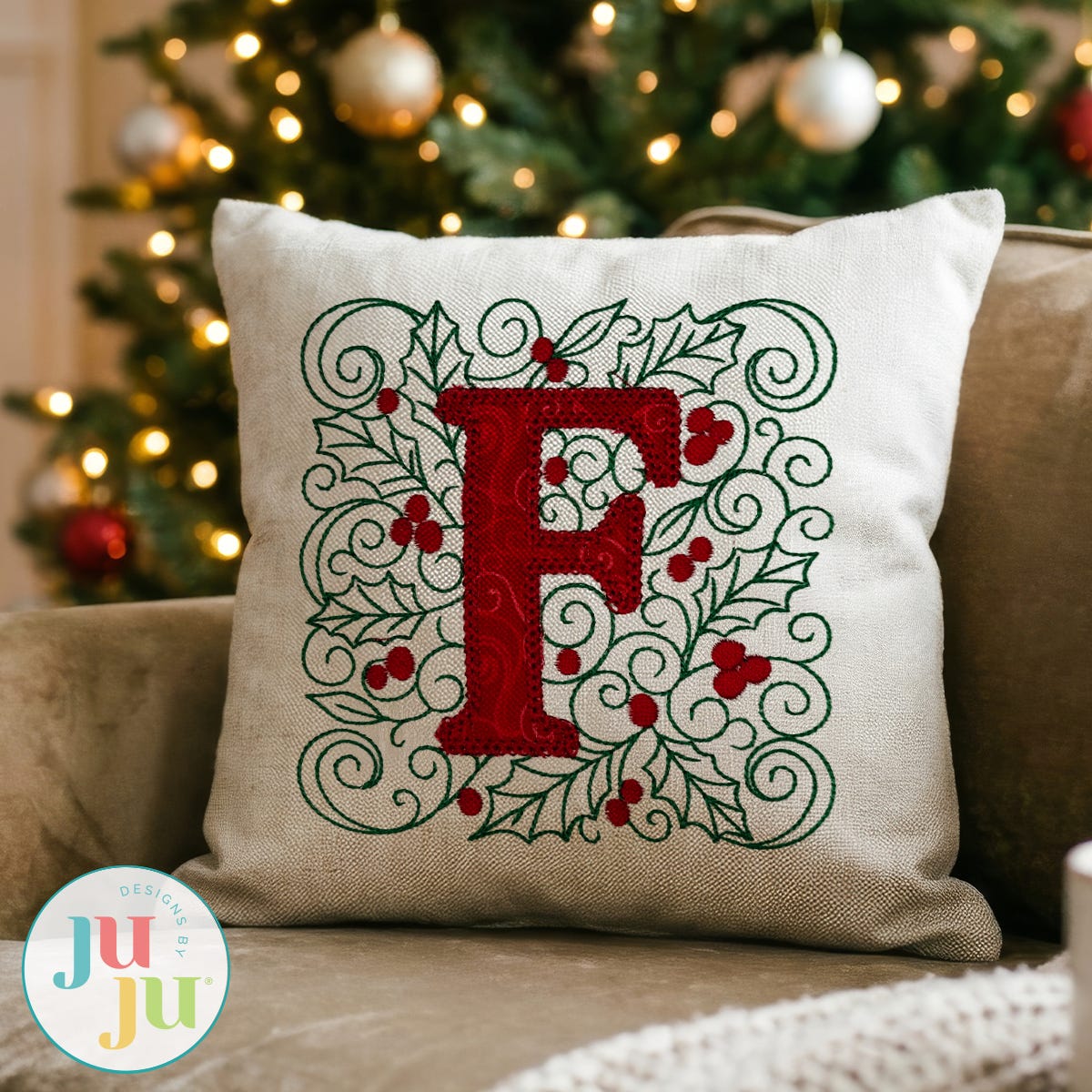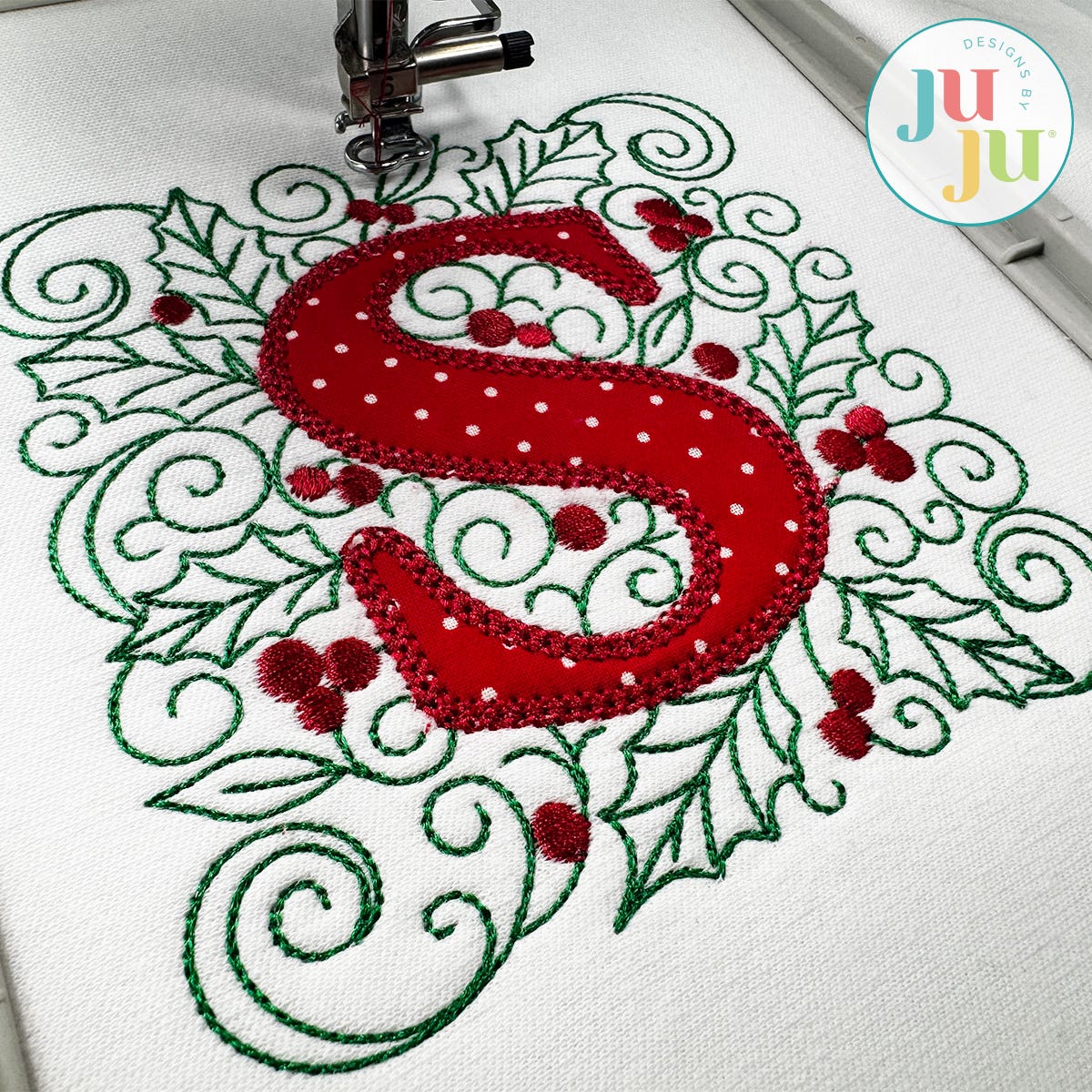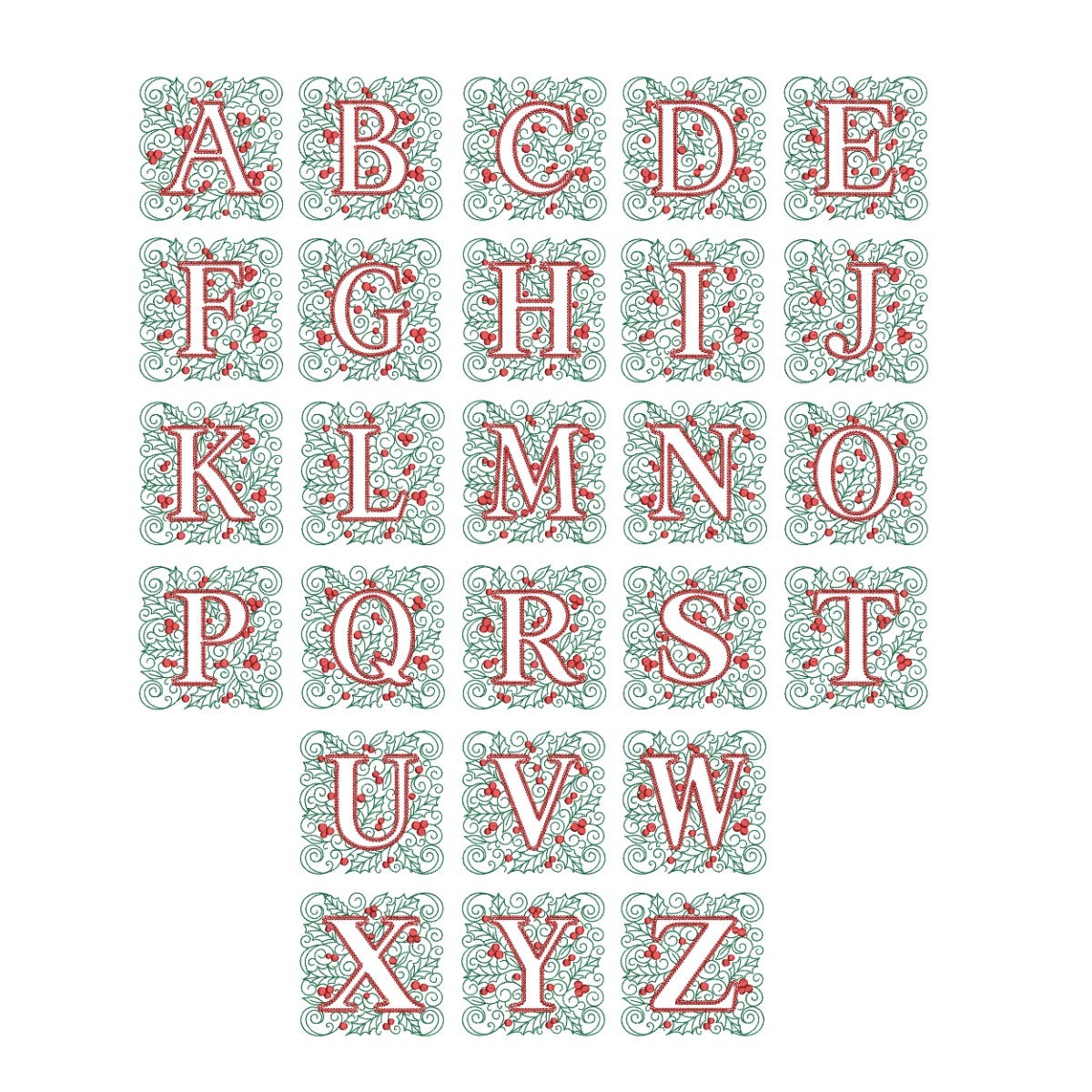
Elegant Holly Christmas Motif Stitch Applique Monogram Embroidery Font
Add an elegant holiday touch to your Christmas stitching with our Elegant Holly Christmas Monogram embroidery design set! This beautiful alphabet features applique letters finished with a classic chain stitch, surrounded by delicate holly and scrollwork embroidery frames for a timeless festive look.